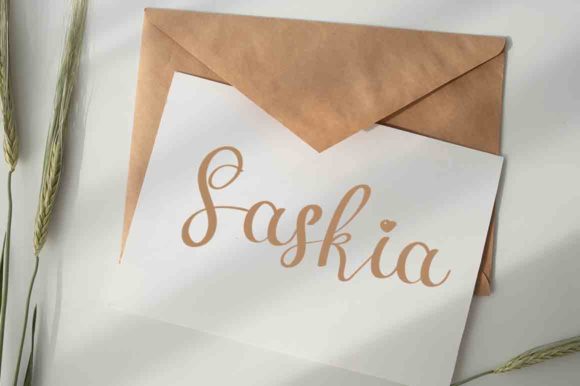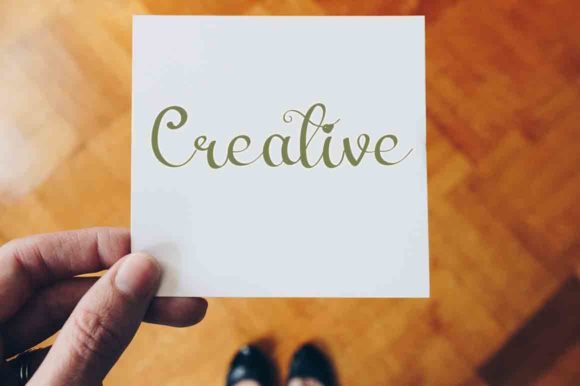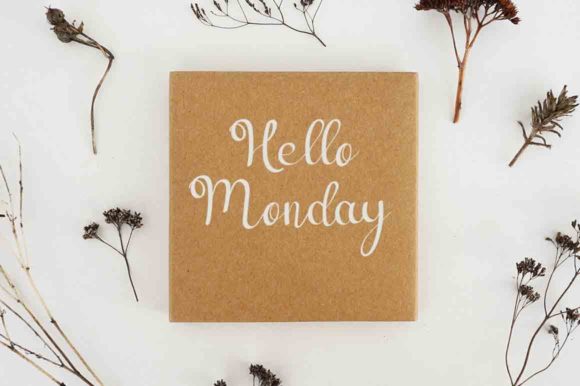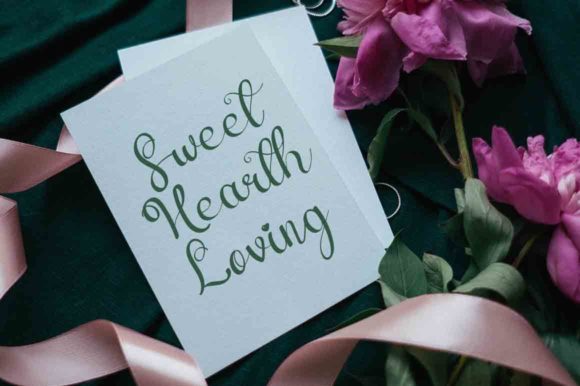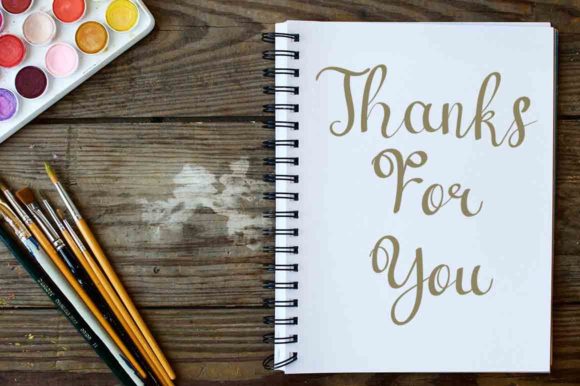
Discover the Magic of Absolute Font
Have you ever found yourself scribbling down a heartfelt message on a handmade card, only to realize that the right words are overshadowed by the imperfect handwriting? We’ve all been there. But what if you could infuse your message with confidence, authenticity, and charm, without sacrificing the personal touch?
Enter the Absolute Font, a ravishing handwritten font that’s designed to elevate your crafting ideas and take your message to the next level. Whether you’re creating cards, branding, labels, or anything in between, this font is the perfect companion to help you convey your unique voice and style.
As a designer, you know that the right font can make all the difference. With Absolute Font, you’ll be able to add a touch of sophistication and elegance to your work, while still maintaining its handmade charm. It’s the perfect tool to help you stand out from the crowd and leave a lasting impression.
Key Features of Absolute Font
- Unique Character Set: Absolute Font features a unique character set that includes a wide range of symbols, icons, and glyphs, making it ideal for use in creative and design applications.
- Language Support: Absolute Font supports a wide range of languages, including Latin, Cyrillic, Greek, and many others, making it a versatile font for global use.
- Scalability: Absolute Font is designed to be highly scalable, allowing it to be used at a wide range of sizes and resolutions without losing its clarity and legibility.
Designer Review: Absolute Font
Overall, I found Absolute Font to be a decent addition to my design toolkit, with some notable strengths and weaknesses.
- Modern aesthetic: The font’s sleek and minimalist design makes it perfect for contemporary projects, such as tech startups, fashion brands, or any business looking for a clean and sophisticated look.
- Legibility: Absolute Font is highly legible, even at small font sizes, which is essential for any project requiring a high level of text clarity.
- Flexibility: The font comes in a range of weights and styles, allowing designers to experiment with different typography combinations and create a unique visual identity.
- Lack of boldness: While the font has a range of weights, I found the bold variant to be somewhat lacking in punch, which can make it less effective for headlines or titles.
Overall, I’d say Absolute Font is a solid choice for designers seeking a modern, legible, and versatile font for their projects. However, its restrictive license and lack of boldness may be drawbacks for some users.
Tips for Getting the Most Out of Absolute Font
Here are some tips to help you get the most out of Absolute Font:
- Use Absolute Font in combination with other fonts to create a unique and eye-catching design.
- Pay attention to the font’s kerning and spacing to ensure it looks polished and professional.
Here are some common use cases for Absolute Font:
- Headings and titles in marketing materials and advertisements.
- Body text in blog posts and articles.
- Logos and branding materials.
Comparison to Absolute Font: Arial is more legible in digital formats and has a more modern feel, whereas Absolute Font has a more classic and elegant look.
Open Sans is a modern sans-serif font that is highly legible and versatile. It is a great alternative to Absolute Font for digital media, such as websites and mobile apps. Use Open Sans when you need a clean and modern font that works well in a variety of contexts.
Yes, the Absolute Font supports a wide range of Unicode characters, including Latin, Cyrillic, Greek, and many other scripts. This allows you to use the font for languages that require these characters, such as Russian, Chinese, or Arabic.